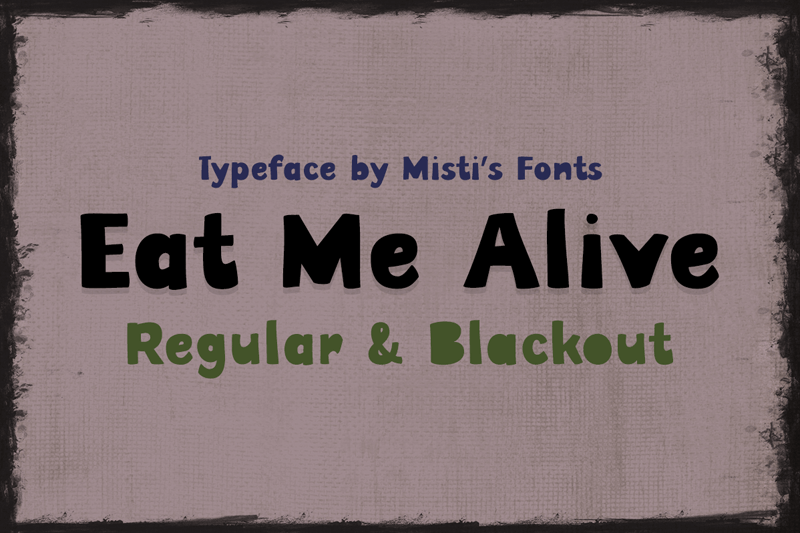
Font name: | Eat Me Alive |
Eat Me Alive is a bold and playful Halloween-inspired font with quirky, hand-drawn vibes. Available in Regular and Blackout styles, it�s perfect for spooky titles, party invites, posters, and any design that needs a fun creepy twist. Terms Of Use and Commercial Use: https://mistifonts.com/eat-me-alive/ |